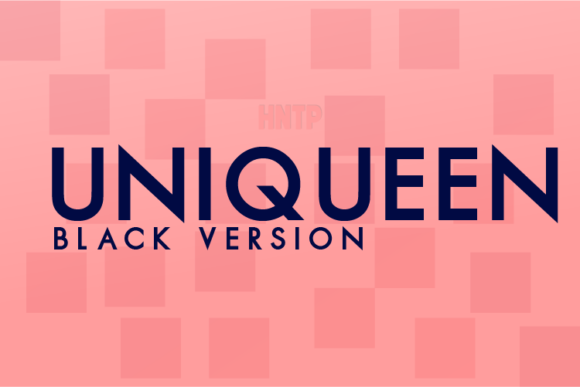
Step into the world of Uniqueen Black Font, a remarkable masterpiece from the renowned Huntype foundry. Experience the essence of sophistication and precision with a sans serif creation that's more than just a font; it's an unparalleled storytelling tool, perfect for crafting impactful brand narratives that resonate with your audience.
Uniqueen Black Font exudes an aura of authority and timelessness, lending a touch of elegance to any project. Its sharp and crisp lines exude a sense of professionalism, making it the perfect choice for corporate publishing, branding, and wayfinding. Unleash the power of clarity and guide your readers through complex technical information systems with effortless navigation and chic visual appeal.
With Uniqueen Black Font, your messages take on a life of their own, conveying a sense of confidence and expertise that sets your brand apart. Its geometric structure and roman proportions provide a solid foundation for visual hierarchy, allowing you to create visually compelling designs that capture and retain attention.
Transform ordinary text into captivating headlines, inject personality into your marketing campaigns, and elevate your digital presence to new heights. The versatility of Uniqueen Black Font shines across a wide spectrum of applications, from sleek website headers to eye-catching social media posts. Let your creativity run wild as you explore the boundless possibilities of this extraordinary font.
With Uniqueen Black Font, you're not just downloading a font; you're acquiring an artistic partner that amplifies your vision and elevates your brand to new levels of success. Embrace the fusion of art and technology as you redefine your visual identity and captivate your audience with a font that speaks volumes.
Don't settle for ordinary; embrace the extraordinary with Uniqueen Black Font. Dive into a world of typographic excellence and unleash the full potential of your creative endeavors. Your brand deserves the best, and Uniqueen Black Font delivers.